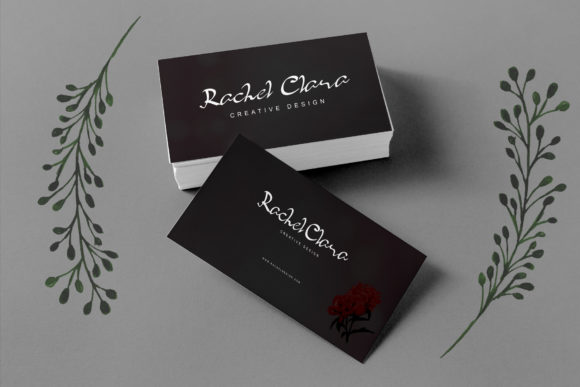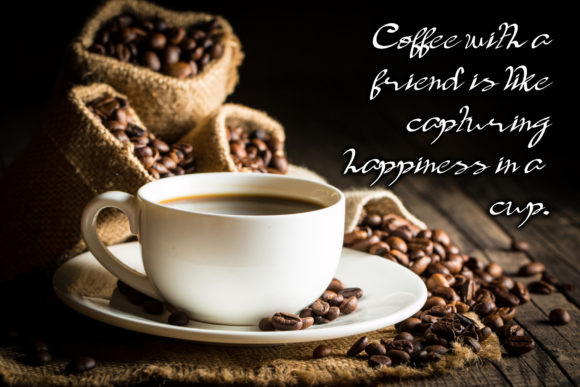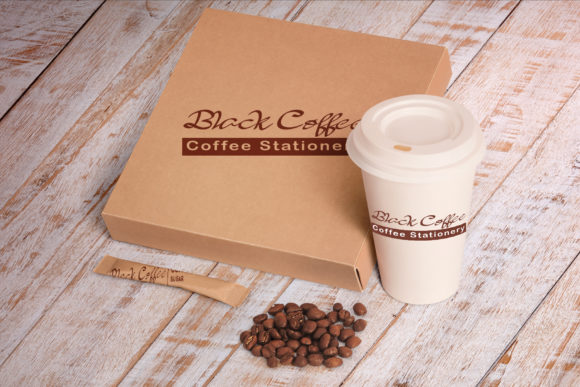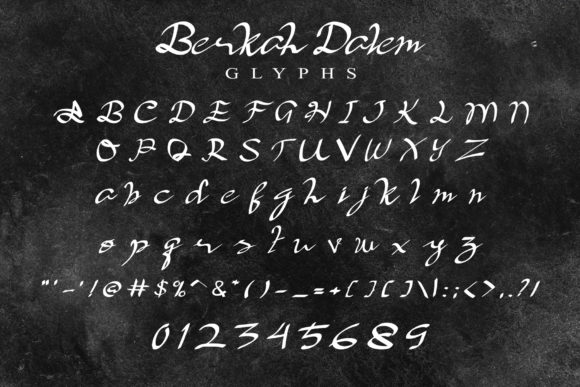
Berkah Dalem Font: A Unique and Charming Handwritten Font for Your Creative Projects
In the world of typography, a good font can make all the difference in the success of a design project. Whether you’re a graphic designer, a crafty DIY enthusiast, or a business owner looking to create a strong brand identity, having the right font at your disposal can elevate your work from ordinary to extraordinary. This is where Berkah Dalem Font comes in – a unique and charming handwritten font that is versatile, stylish, and perfect for a wide range of applications.
What Makes Berkah Dalem Font Special?
Berkah Dalem Font is a one-of-a-kind handwritten font that boasts a distinctive charm and character. Its unique design makes it stand out from more traditional fonts, offering a fresh and modern aesthetic that is sure to capture attention. The font’s versatility is one of its most appealing features, making it suitable for use in a variety of projects, from design and branding to logos, labels, and more.
Key Features of Berkah Dalem Font
- Unique and Charming Design: Berkah Dalem Font features a truly unique and charming design that will add a touch of personality to any project.
- Versatile: This font is incredibly versatile and can be used in a wide range of applications, from digital designs to print materials.
- Handwritten Aesthetic: The font’s handwritten aesthetic gives it a warm, personal feel that is perfect for creating a more approachable and relatable brand identity.
- Easily Readable: Despite its unique design, Berkah Dalem Font is easily readable, making it suitable for use in body text as well as headlines and titles.
Uses for Berkah Dalem Font
The possibilities for using Berkah Dalem Font are endless. Here are just a few ideas to get you started:
- Logo Design: Create a memorable and impactful logo for your business or brand with Berkah Dalem Font.
- Branding and Identity: Use the font across your branding materials, including business cards, letterheads, and packaging, to create a cohesive and recognizable identity.
- Digital Design: Incorporate Berkah Dalem Font into your digital designs, such as website headers, social media graphics, and email newsletters.
- Print Materials: Use the font in print materials like brochures, flyers, posters, and banners to add a personal touch.
- Crafting and DIY Projects: Berkah Dalem Font is perfect for crafty DIY enthusiasts who want to add a professional touch to their handmade projects, such as labels, cards, and journals.
Tips for Using Berkah Dalem Font Effectively
To get the most out of Berkah Dalem Font, here are a few tips to keep in mind:
- Pair with Complementary Fonts: Berkah Dalem Font pairs well with clean, sans-serif fonts. Try pairing it with a font like Arial or Helvetica for a striking contrast.
- Experiment with Colors: The font looks great in a variety of colors, so don’t be afraid to experiment and find the perfect hue to match your brand or design.
- Use for Headlines and Titles: Berkah Dalem Font is perfect for headlines and titles, but it can also be used for body text in smaller sizes.
Berkah Dalem Font is a unique and charming handwritten font that is perfect for designers, crafters, and business owners looking to add a touch of personality to their projects. Its versatility, readability, and distinctive design make it an excellent choice for a wide range of applications. Whether you’re looking to create a strong brand identity, design eye-catching materials, or simply add a professional touch to your DIY projects, Berkah Dalem Font is an excellent choice.